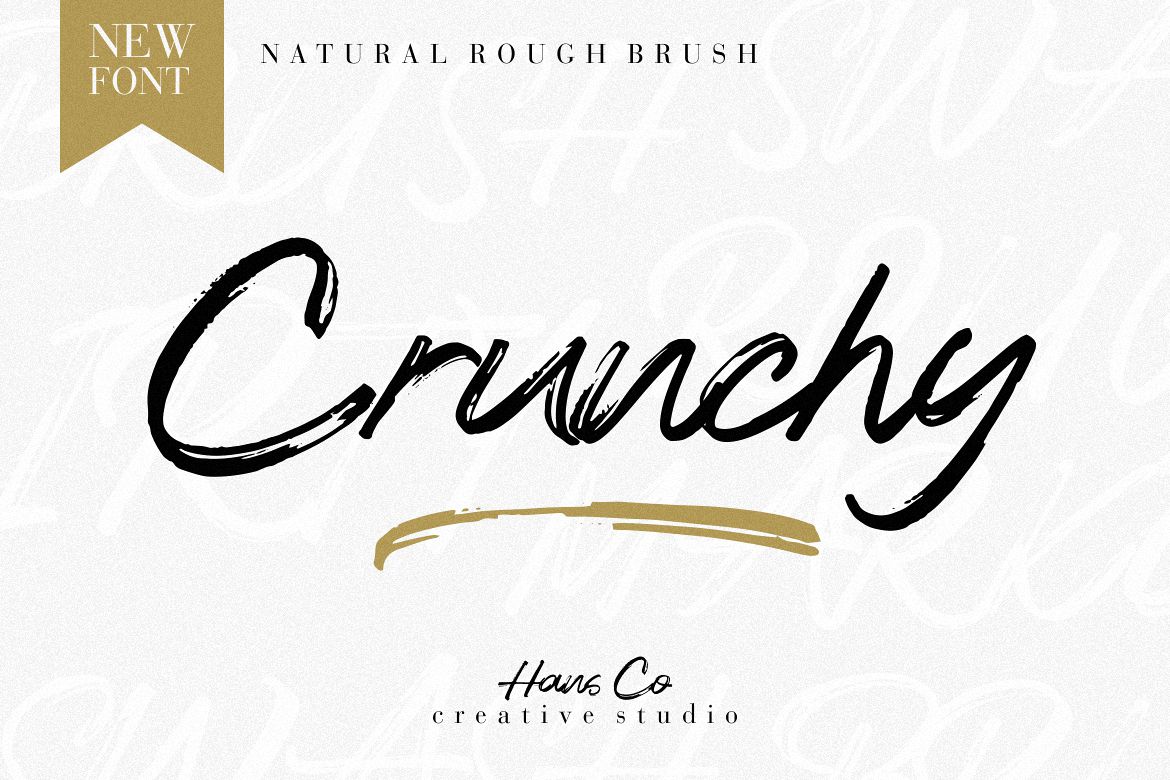
Crunchy font - Crunchy font is a casually and quickly written brush script. This texture is very detailed. You can get the swash brushes include as a alternate in this font. Crunchy font is suitable for logo, shirt, fashion, blog, website, product branding, poster, flyer, any print template or for text overlay to any background image. How to use alternate, if you use Adobe / Corel Draw you just block one of the letters / numbers (for swash) and an arrow will appear under the letter, and you can replace it with alternative characters. Alternative character ready for " f , g , j , y and numeral 0 - 9 " Enjoy!